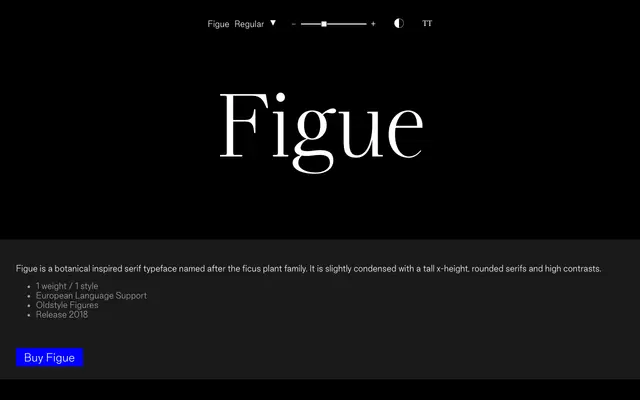
Figue
Good Type Foundry · 2018
A botanical-inspired display serif with rounded serifs, tall x-height and high contrast, released in a single weight.
Named after the ficus plant family, this slightly condensed serif draws on organic references while maintaining crisp, high-contrast letterforms suited to editorial headlines and packaging. The rounded serifs give it a softness that tempers the contrast, making it feel refined rather than severe. Released in 2018 with European language support and oldstyle figures, it covers a broad Latin Extended character set across a single Regular style.
A high-contrast, slightly condensed serif with rounded serifs and tall x-height, characteristics that place it firmly in the display serif category, designed for headline and decorative use rather than extended text.